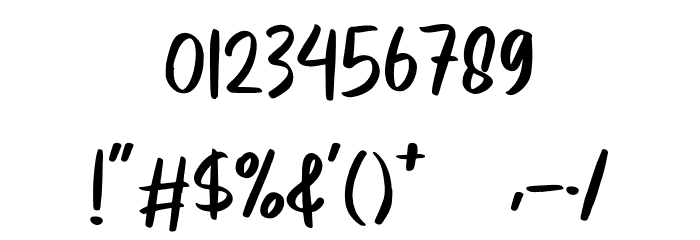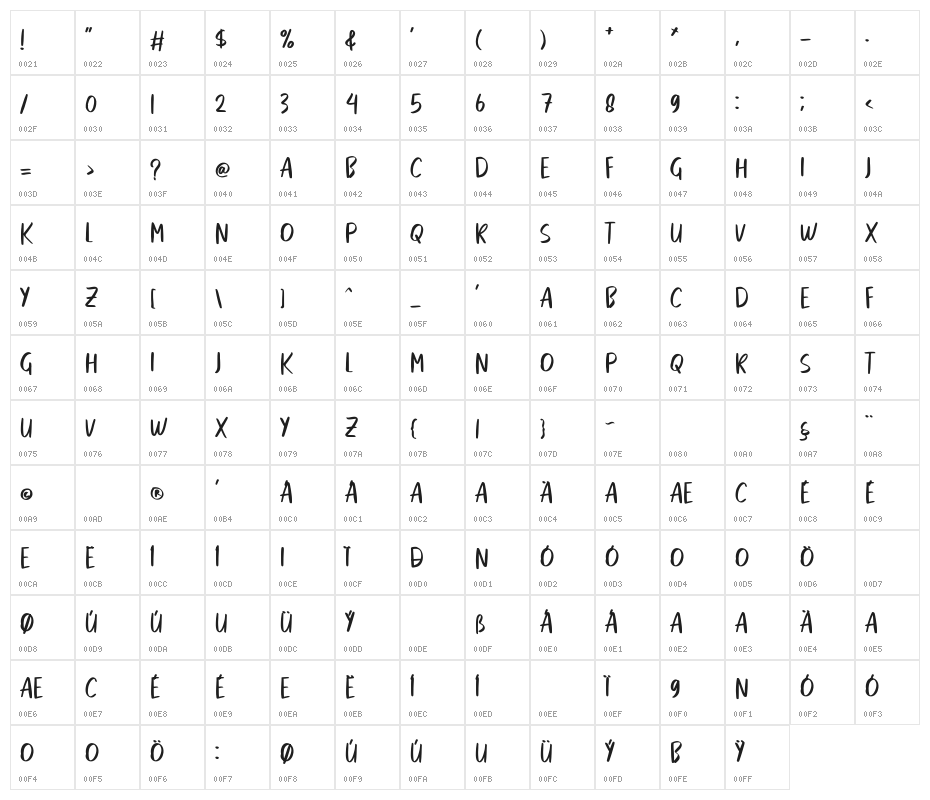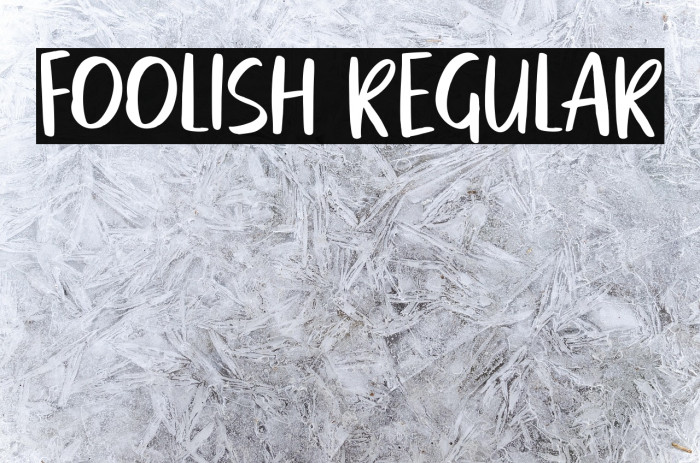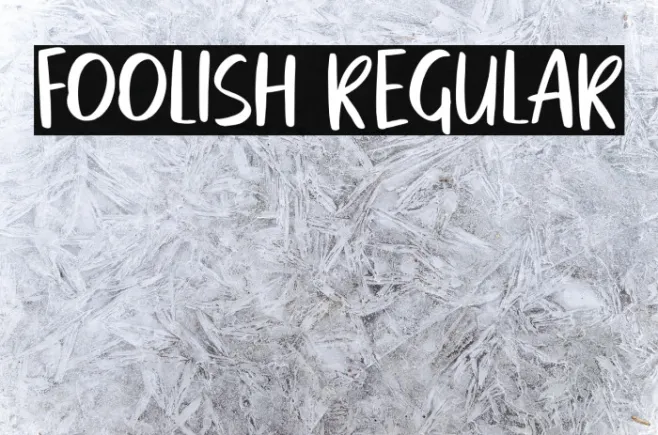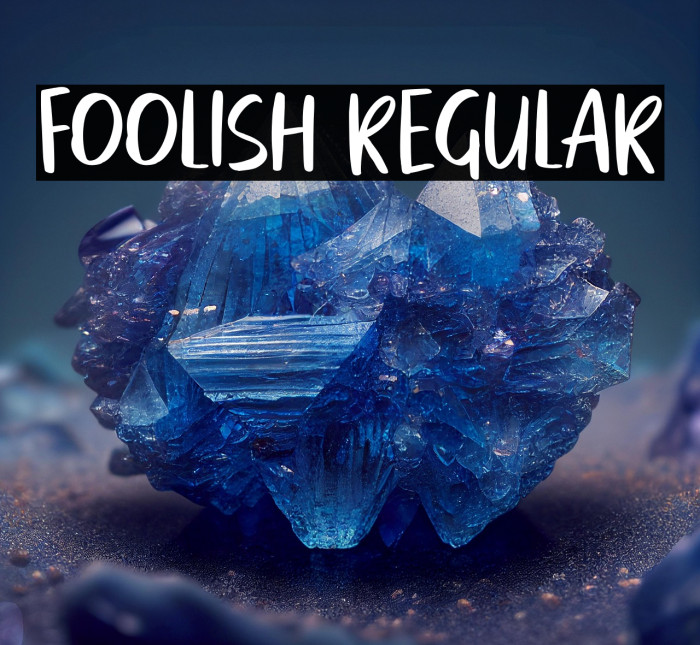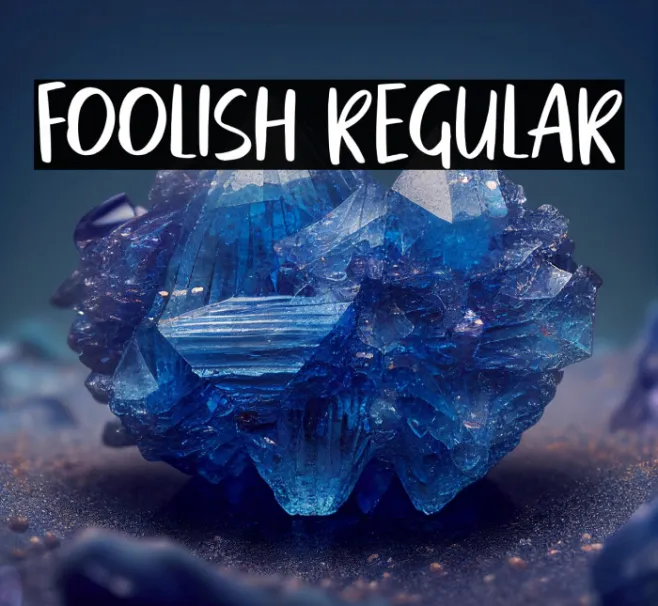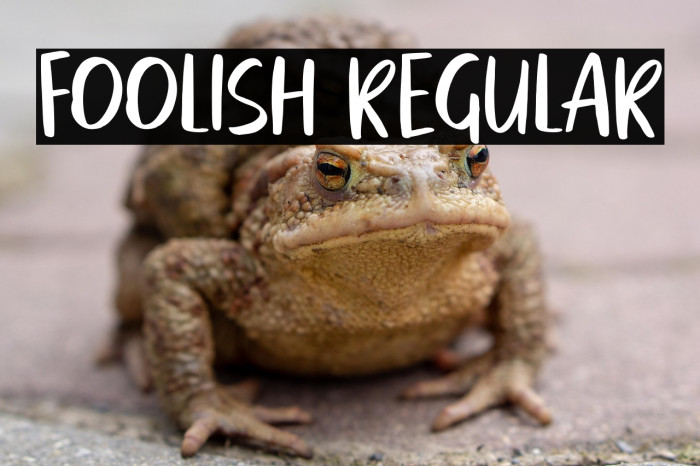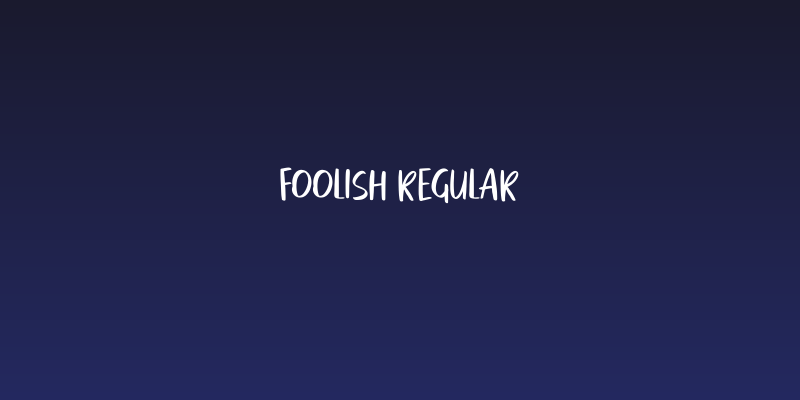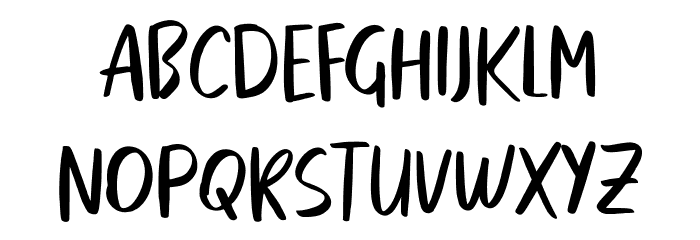
foolish Regular Font
foolish Regular Description
This font features a playful and informal handwritten style, characterized by its smooth, flowing lines and slightly irregular letterforms. The uppercase and lowercase letters maintain a consistent rhythm, giving it a casual yet cohesive appearance. The numbers and special characters follow the same playful aesthetic, making it versatile for various creative projects. Its organic feel is enhanced by the slight variations in stroke width, adding a touch of personality and warmth.
| Use Case | Headlines, Logos, Social Media |
| Proposed Projects | Ideal for greeting cards, children's books, casual branding, and social media graphics. |